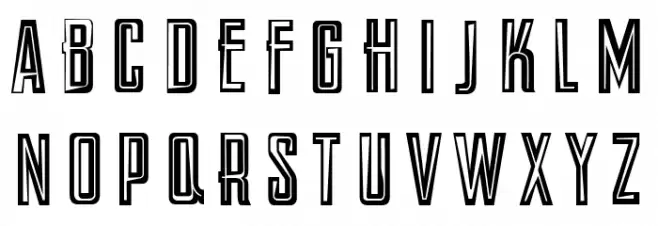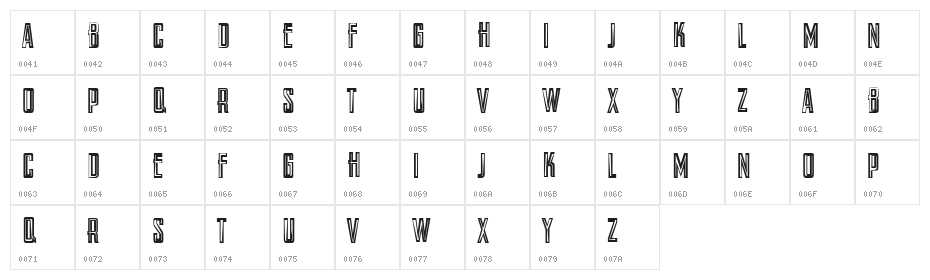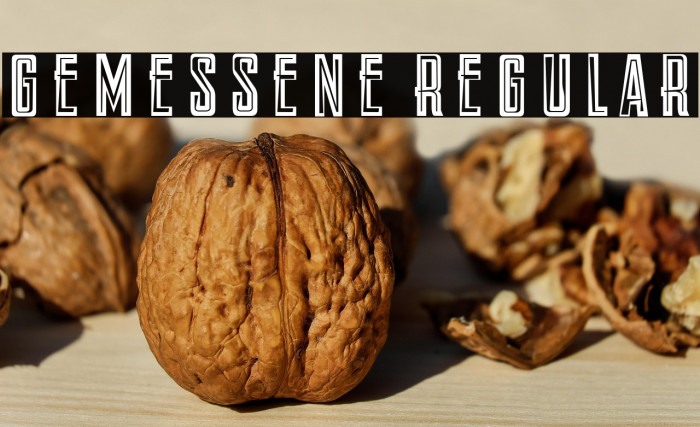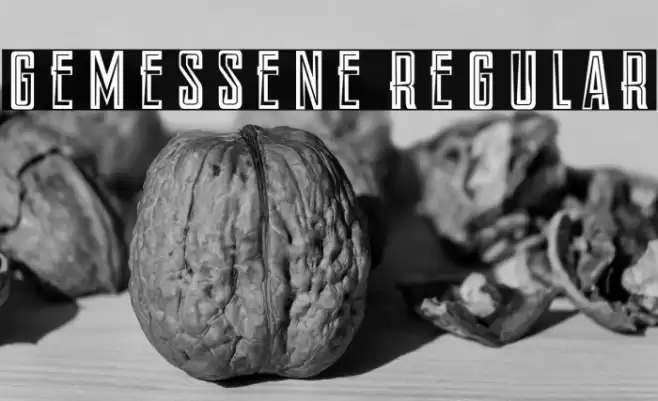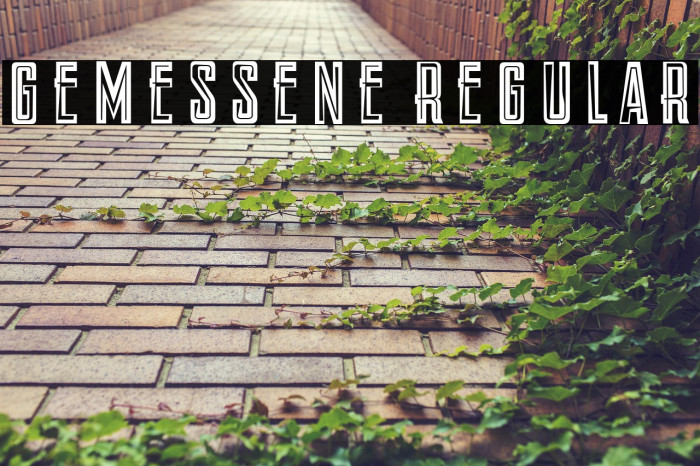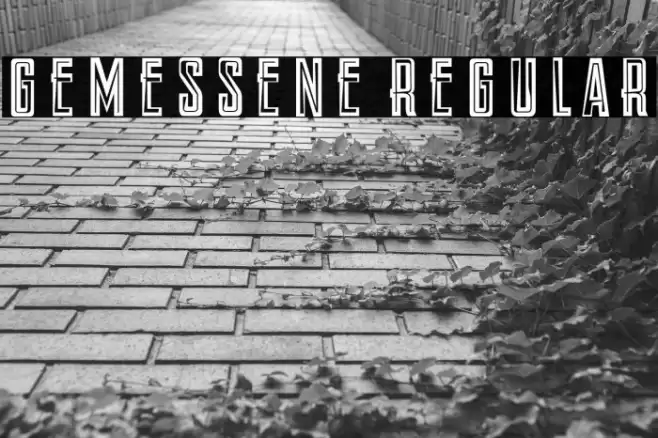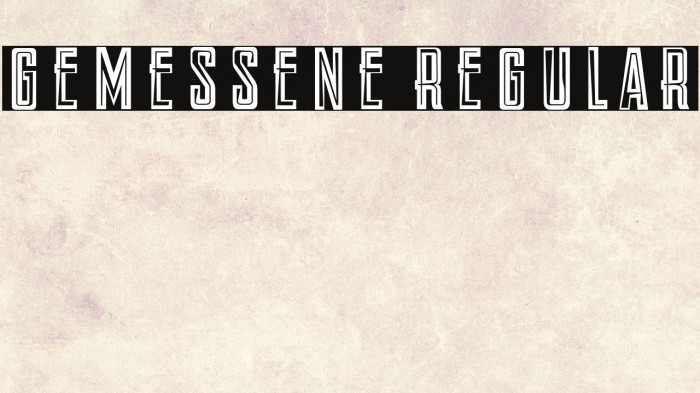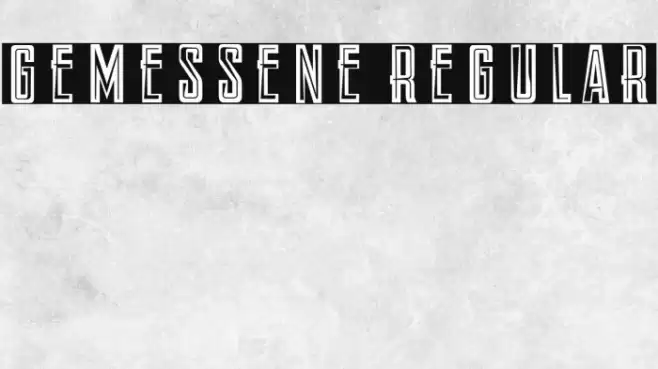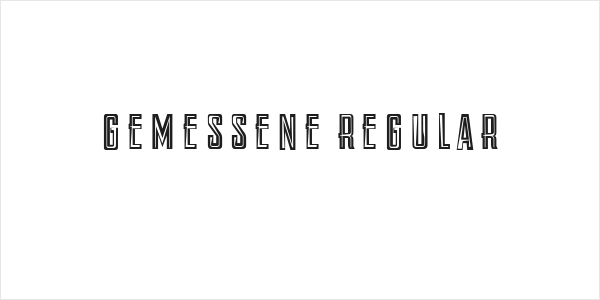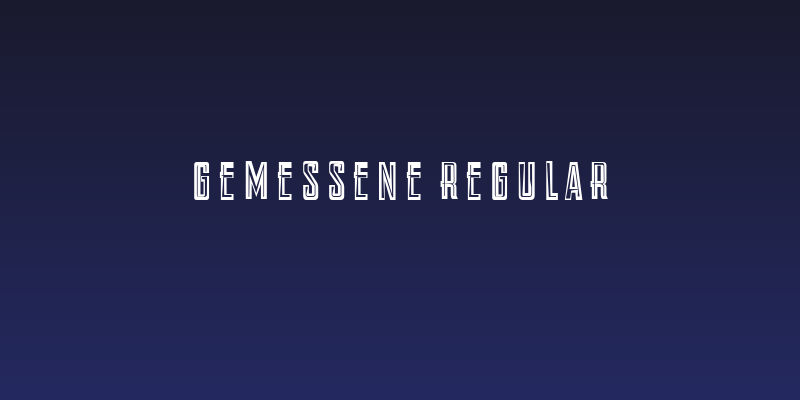
Gemessene Regular Font
Gemessene Regular Description
This font features a bold, geometric design with a modern and industrial feel. The characters are outlined, creating a hollow effect that adds depth and dimension. The uppercase letters are uniform in height, with sharp angles and clean lines that convey a sense of precision and strength. The font's structure is consistent, with each letter maintaining a similar width and style, making it highly legible. The overall appearance is striking and impactful, suitable for making a bold statement in design projects.
| Proposed Projects | Ideal for branding, posters, headlines, and any project requiring a strong visual impact. |